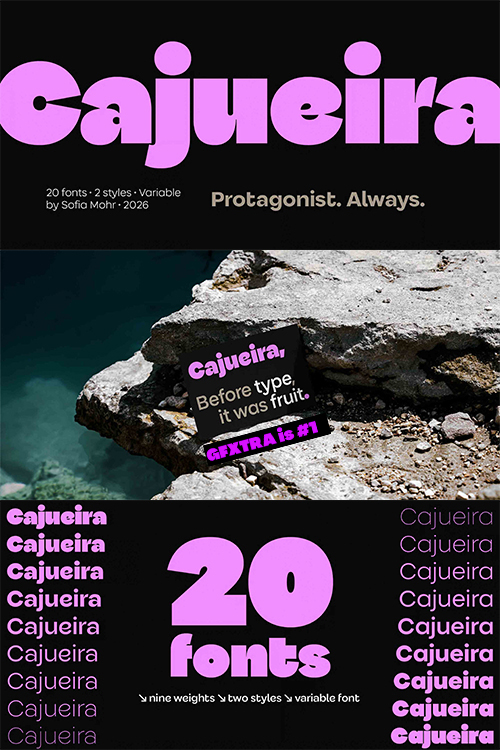
Cajueira - 18 Styles + 2 Variable Fonts
Cajueira is not merely designed. It is cultivated.
- Cajueira is a geometric sans-serif inspired by the logic of cultivation. Rather than drawing from the visual appearance of the Brazilian cashew tree, the project translates processes of growth, expansion, and maturation into a typographic system. Its name defines its essence: “caju,” the fruit, and “-eira,” a place of becoming. Cajueira is conceived not as a static object but as a living system that develops across its weight range.